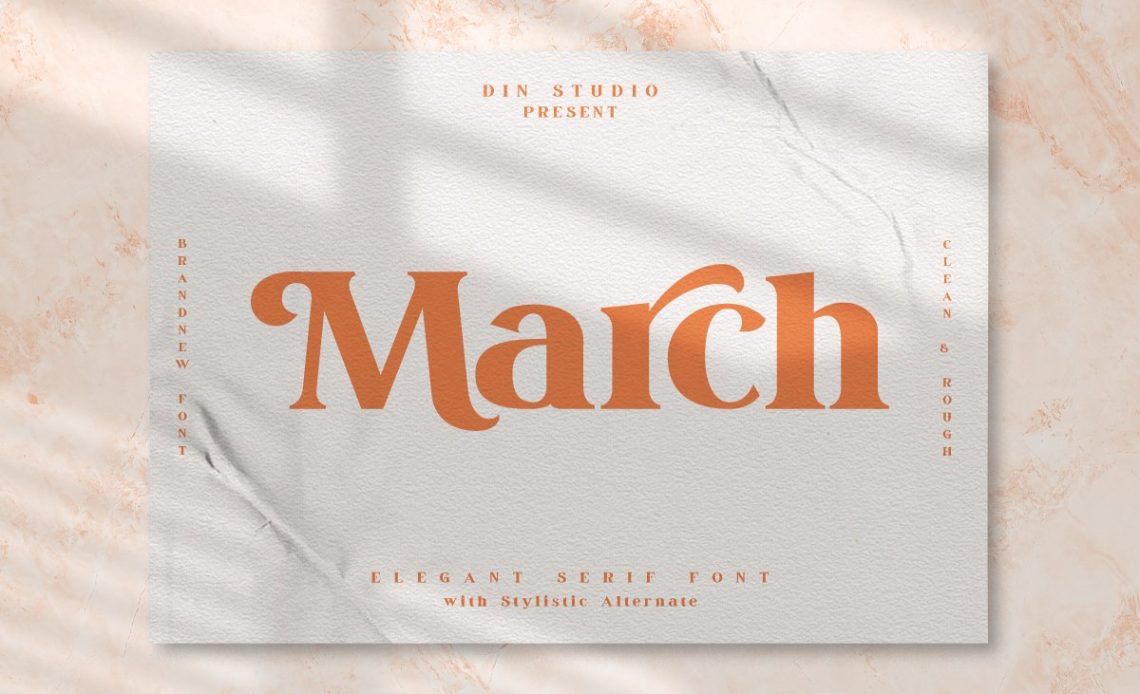
Introducing March - Elegant Serif Font, a breathtaking addition to our collection of fonts that will elevate your designs to new heights. Created by the talented font designer, Donis Miftahudin, this modern and clean display font is sure to capture your imagination.
With its stunning design and captivating style, March font is the perfect choice for a wide range of projects. Whether you're creating posters, banners, logos, book covers, or even social media graphics, this font will add a touch of elegance and inspiration to your work.
But what sets March font apart from others? It's the incredible versatility and attention to detail. With 66 alternates and accents for multilingual characters, you have the freedom to create truly unique designs that speak to your audience. The font is also PUA encoded, ensuring seamless compatibility across different platforms.
We believe that every designer deserves the best tools, which is why we offer March font in two variations: March Clean and March Rough. Both variations come in OTF, TTF, and WOFF formats, giving you the flexibility to use them in any design software.